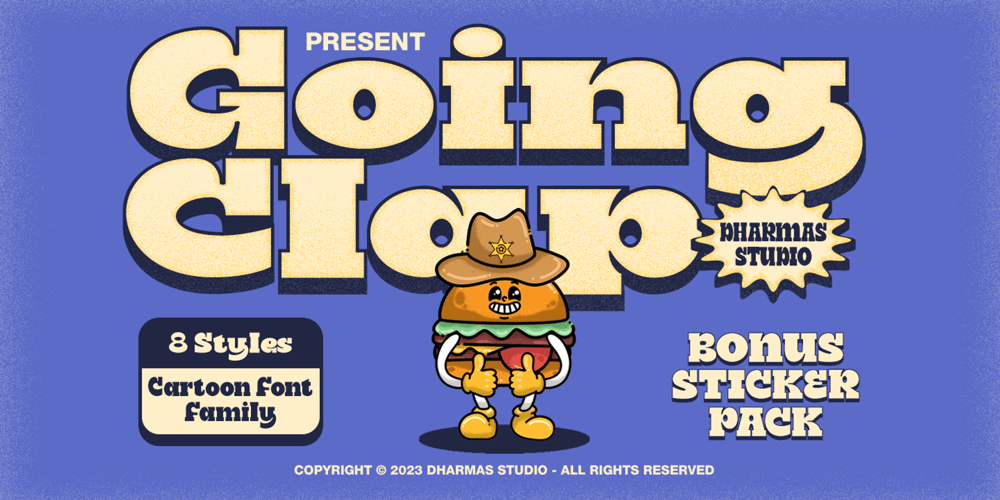
Going Clap Font Family was designed by Ahmad Jamaludin and published by Ahmad Jamaludin. Going Clap contains 8 styles and family package options. Introducing Going Clap, the font that’s all about bold and nostalgic vibes!This chunky slab serif typeface is your secret weapon for making text pop with artistic and vintage flair. With 8 unique font families, including Condensed, Normal, Semi Expanded, and their cool shadow versions, you’ll find the perfect style for any project.But that’s not all! When you choose Going Clap, you’ll also get a fantastic bonus—56 retro mascot illustrations for that extra touch of character and nostalgia.What’s included? Going Clap Main File Has 8 fonts: Condensed, Normal, Semi Expanded, Condensed Shadow, Normal Shadow, Semi Expanded Shadow, Expanded Shadow Instructions (Access special characters, even in Cricut Design) Unique Letterforms Works on PC & Mac Simple Installations Accessible in Adobe Illustrator, Adobe Photoshop, Microsoft Word even Canva! PUA Encoded Characters. Fully accessible without additional design software. Thank you,Dharmas Studio